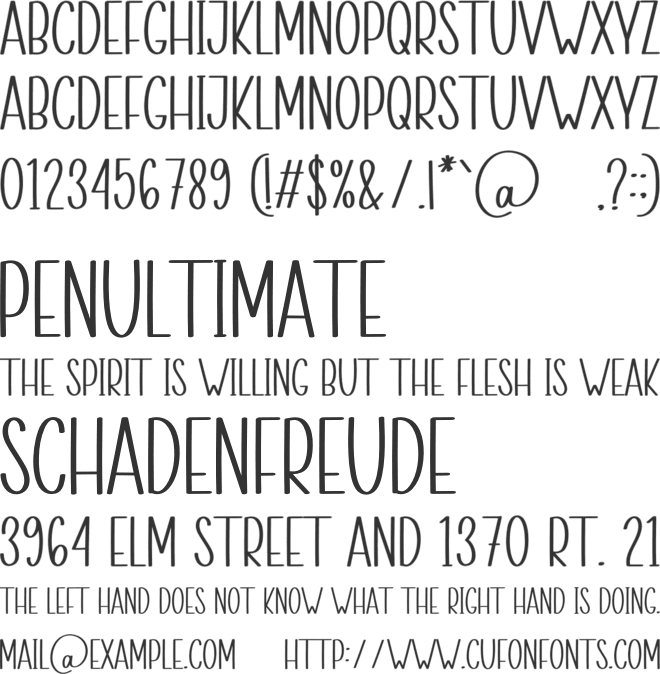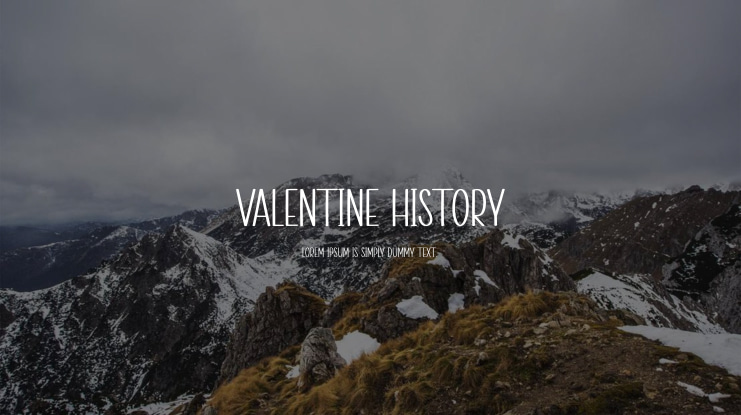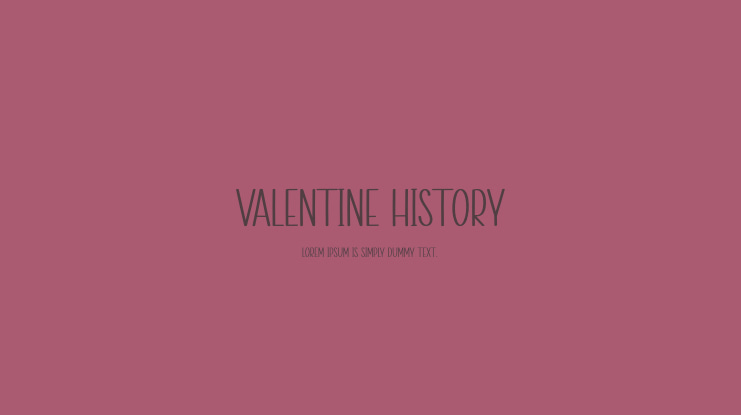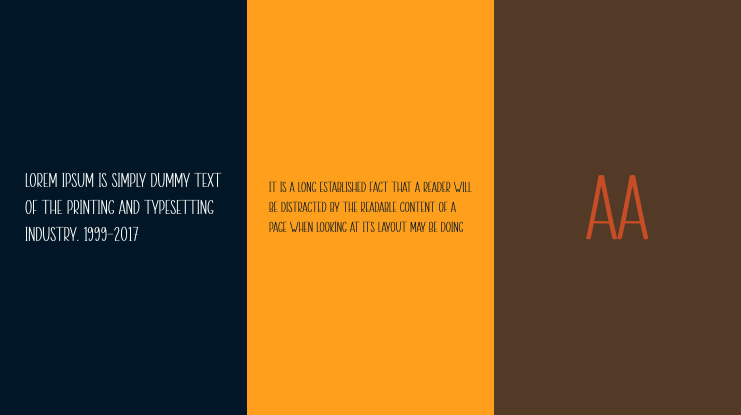
Valentine History Font
Our modern and stylish fonts are ideal for various uses such as wall decorations, wedding invitations, social media logos, advertisements, packaging, design projects, labels, photography, watermarks, invitations, stationery, and any other project that demands elegant handwriting.